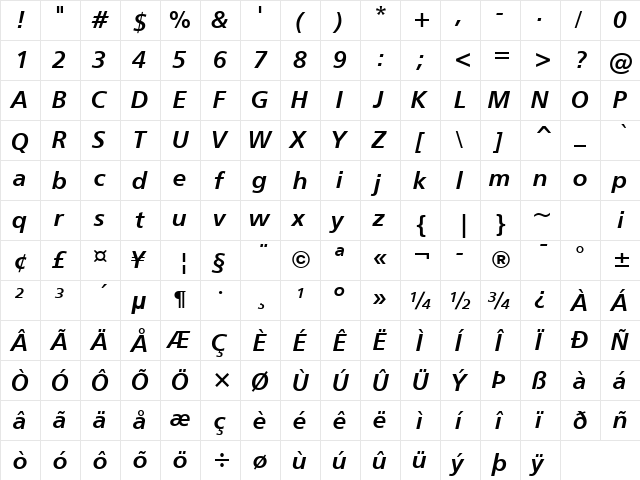
Humnst777 BT Bold Italic Font Preview
Design Context for Humnst777 BT Typeface
Humnst777 BT offers clean, dependable letterforms without strong stylistic allegiance, making it a practical choice for designers who need flexibility. The dynamic lean of this cut emphasises speed and emphasis in any layout. Its bold stroke weight gives it real presence on the page.
Pro Tip: Try Humnst777 BT for annotation and caption copy alongside an upright companion — the contrast in angle creates a dynamic but ordered typographic system.